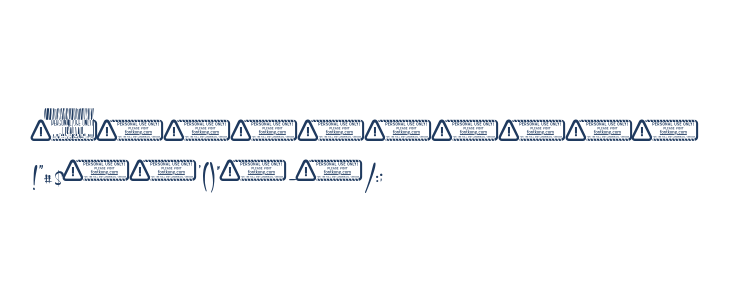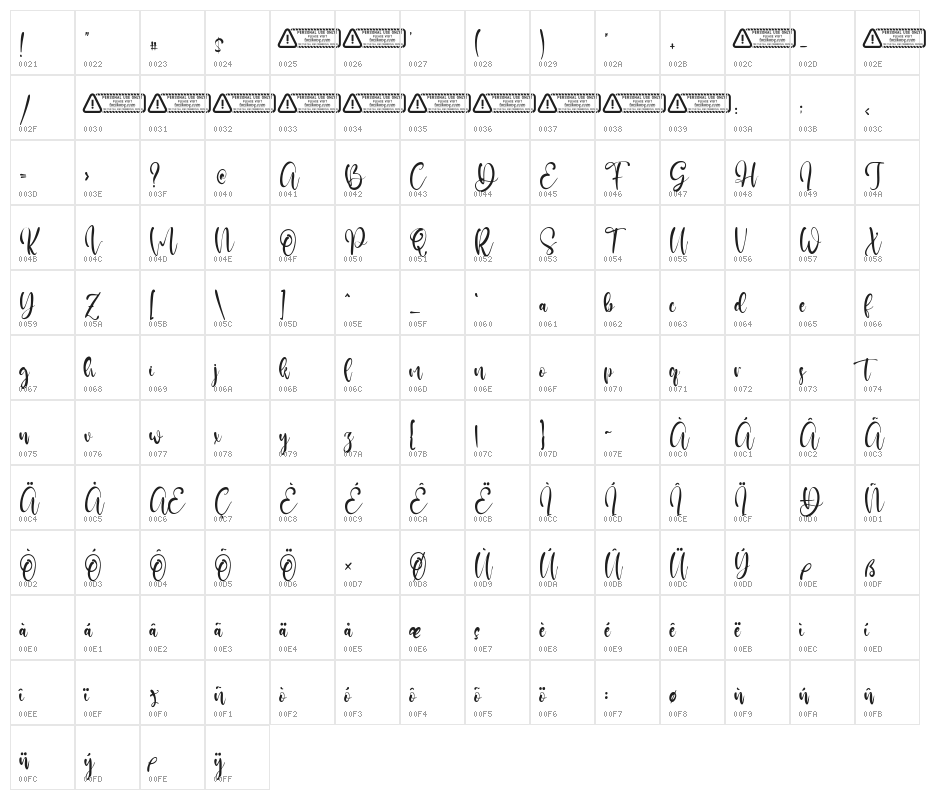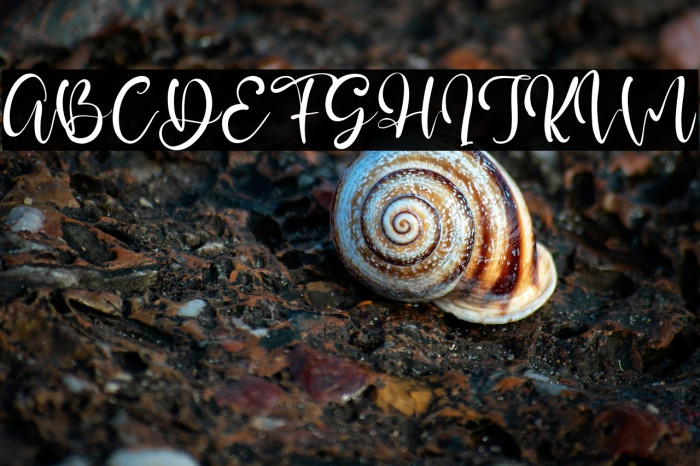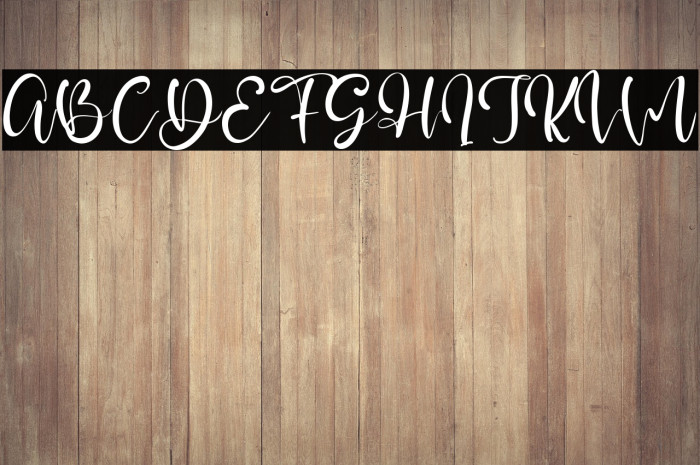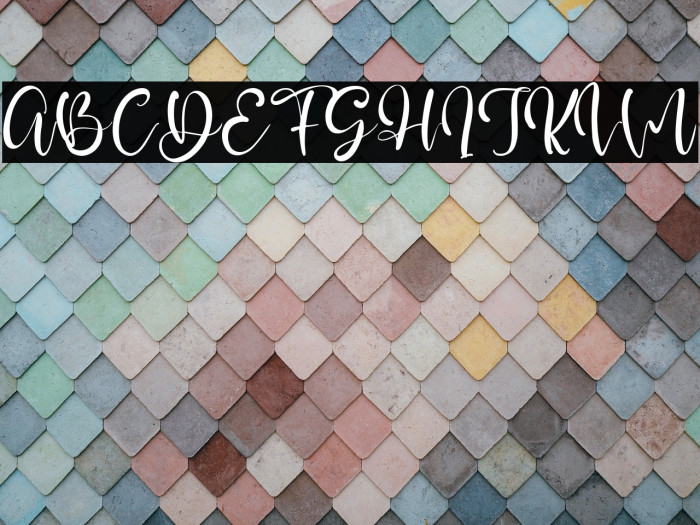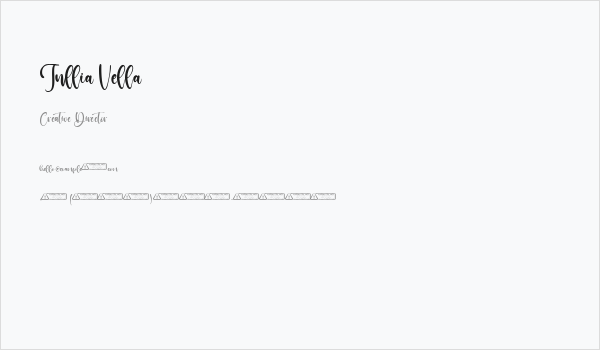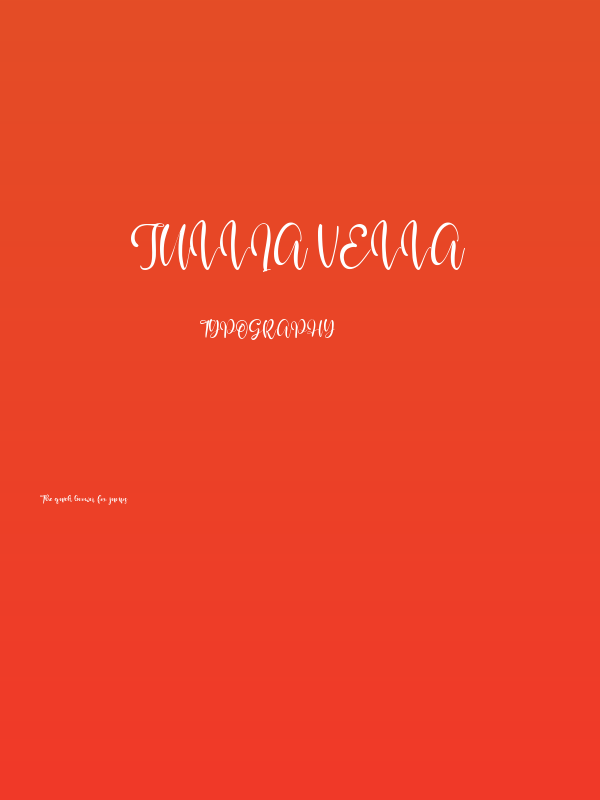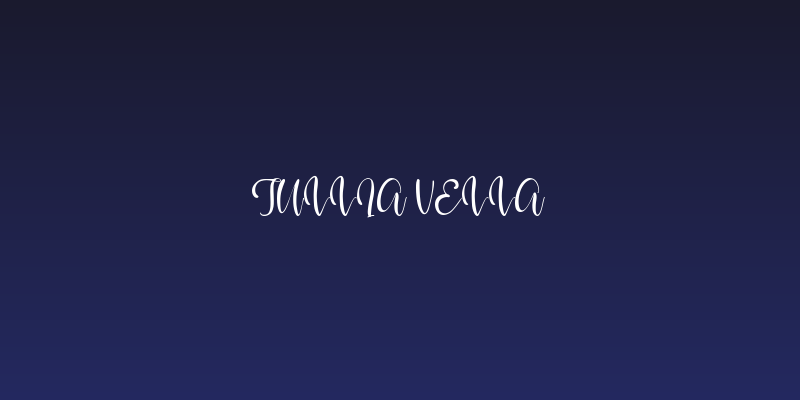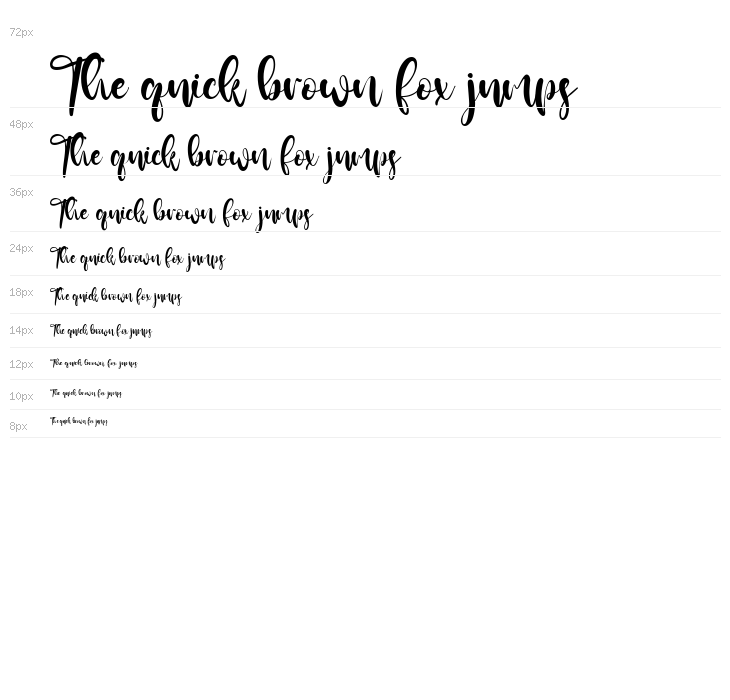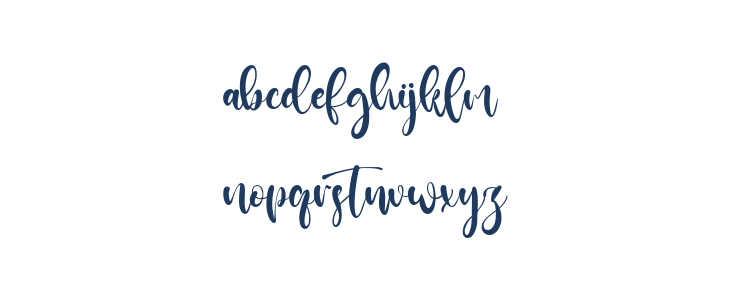
Jullia Vella Font
Jullia Vella Description
This font features a flowing, cursive style with elegant loops and swashes, giving it a handwritten appearance. The uppercase letters are bold and expressive, with a distinct flair that adds a touch of sophistication. The lowercase letters maintain a consistent style, with smooth connections between characters, enhancing the script's fluidity. The numbers and special characters are designed to match the overall aesthetic, ensuring a cohesive look across all text elements. This font is perfect for adding a personal touch to any design, with its artistic and graceful appearance.